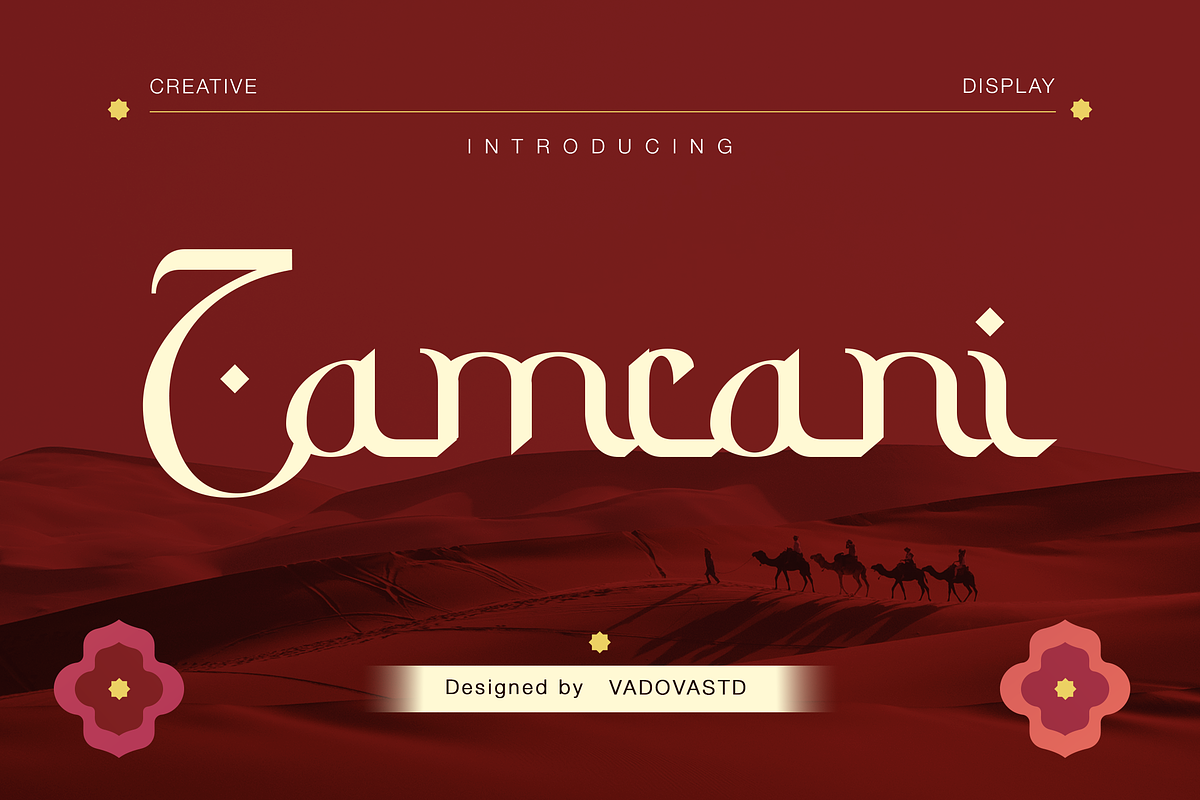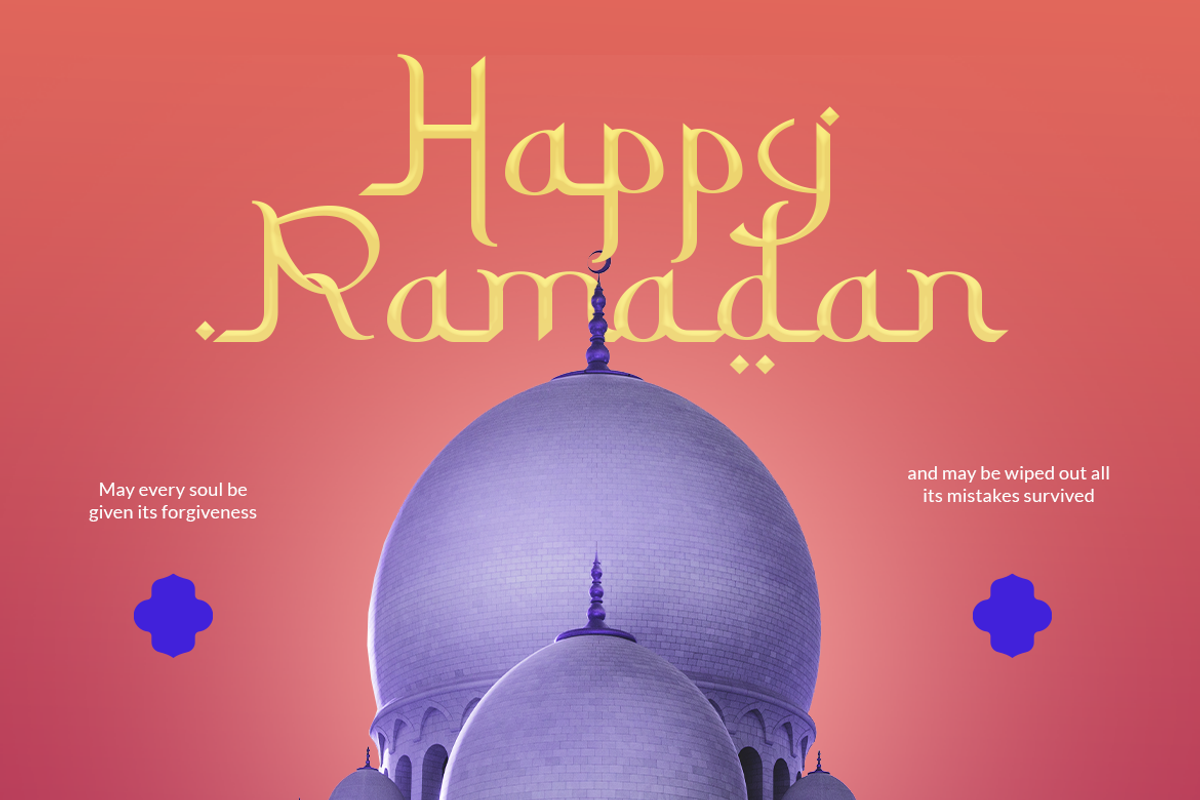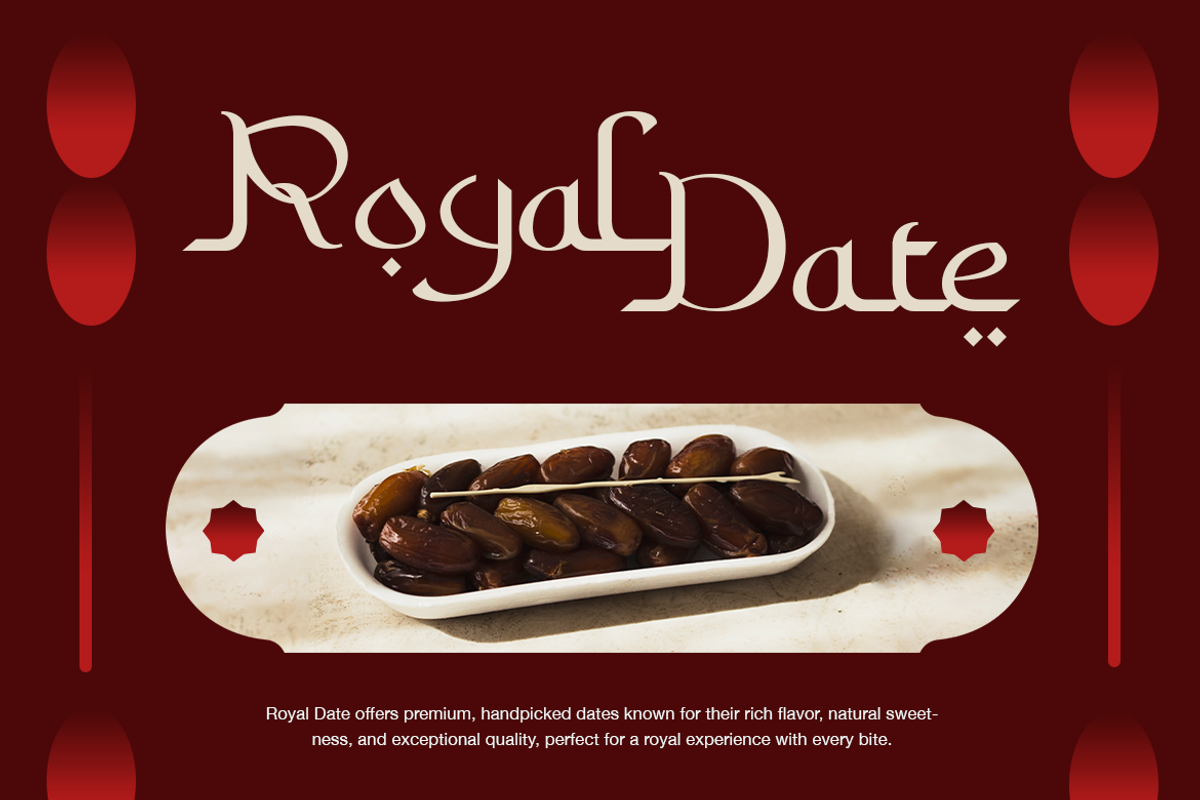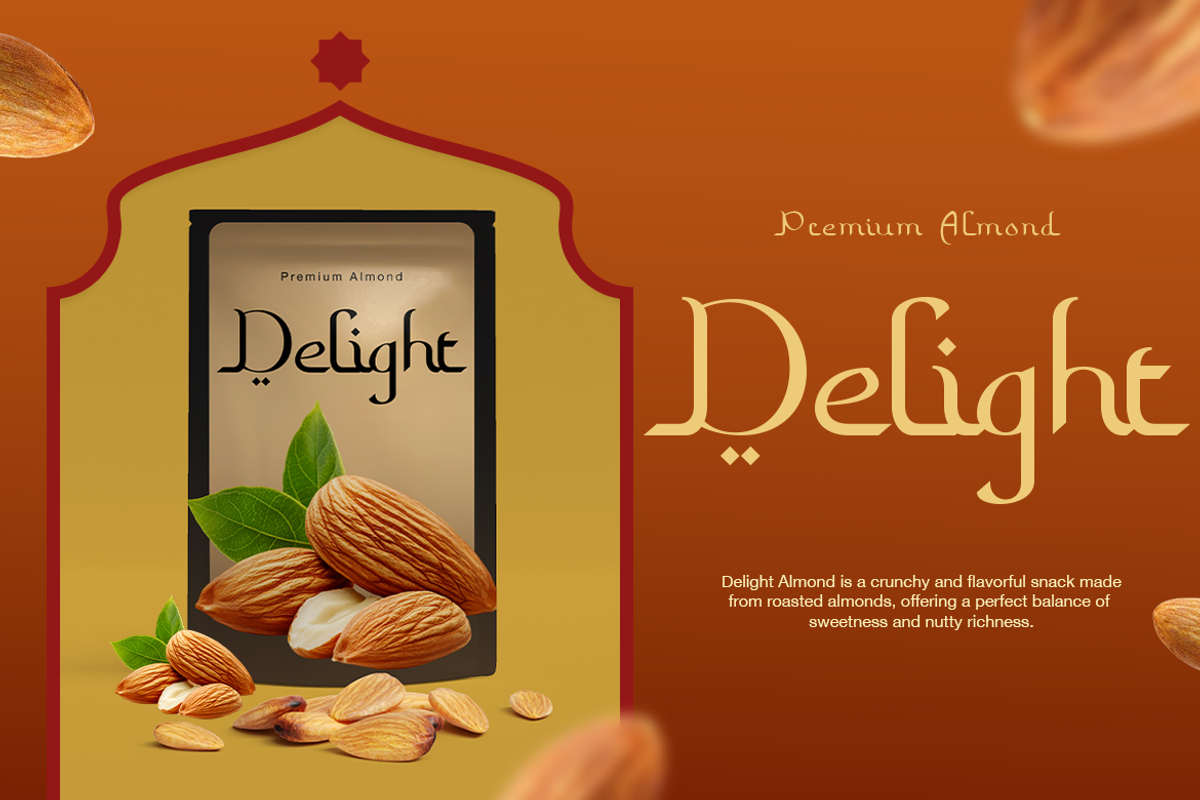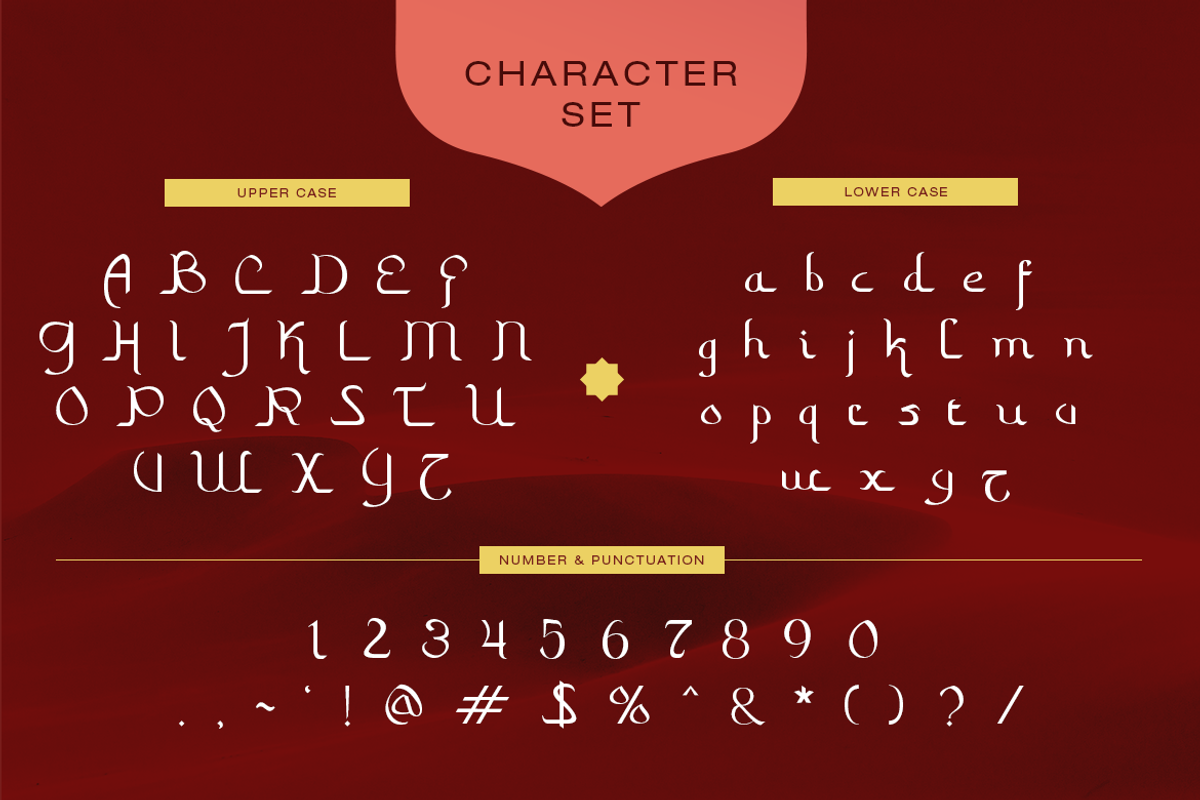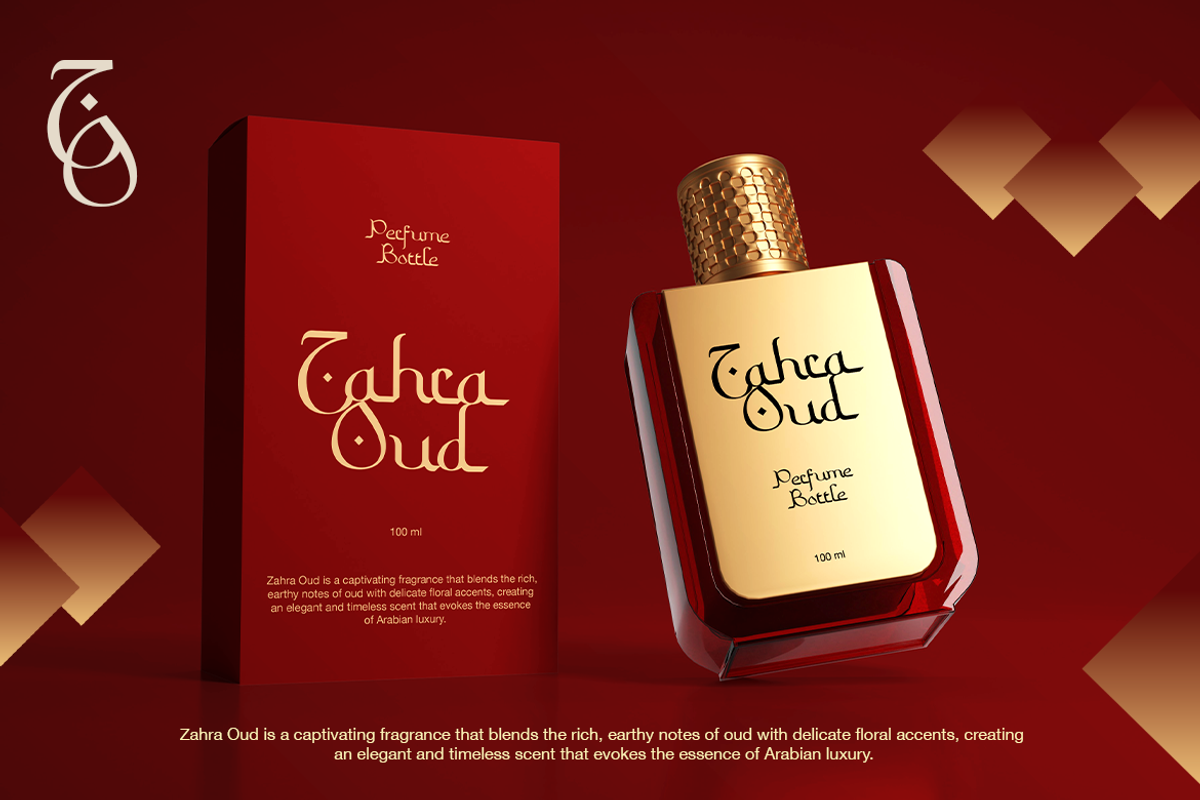
Zamrani Creative Display Font
Zamrani is an elegant Islamic display font inspired by classical Arabic calligraphic proportions combined with refined serif characteristics. The letterforms feature graceful curves, ornamental terminals, and balanced contrast that evoke Middle Eastern visual heritage while maintaining clarity in Latin typography. This package includes uppercase, lowercase, numbers, punctuation, and decorative stylistic details suitable for expressive headline compositions.
Zamrani expresses Islamic elegance through refined serif display forms, making it relevant for culturally inspired visual communication and festive campaigns. It performs effectively in Ramadan and Eid promotions, mosque event posters, editorial headlines, branding systems, packaging, and social media visuals where a graceful Islamic atmosphere and strong headline presence are required.
- Elegant serif structure inspired by Arabic calligraphic proportions
- Graceful curves and tapered strokes creating ornamental character flow
- Distinctive diamond diacritics and decorative terminals for cultural nuance
- Balanced contrast between thick and thin strokes for refined display impact
- Spacious letter rhythm optimized for headline and festive typography
- Islamic brand identity and cultural visual systems with elegant character
- Ramadan, Eid, and religious event promotional designs and campaigns
- Editorial layouts, book covers, and poster headlines with Middle Eastern tone
- Mosque, halal product, and heritage packaging design with ornamental appeal
- Social media quotes, greeting cards, and digital content with spiritual aesthetics
Zamrani craft meaningful designs inspired by Islamic heritage